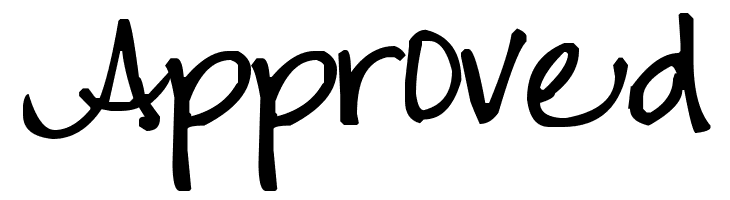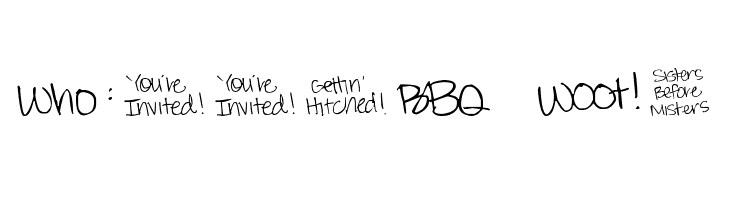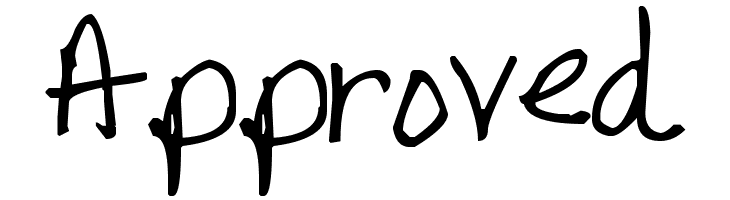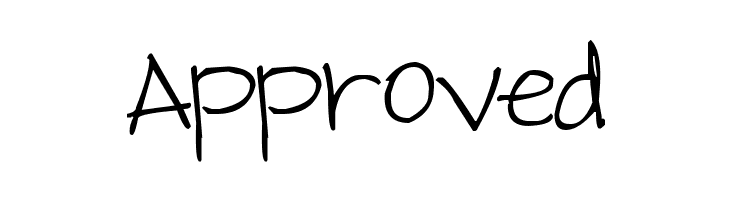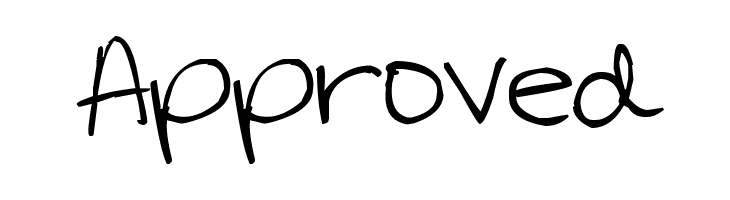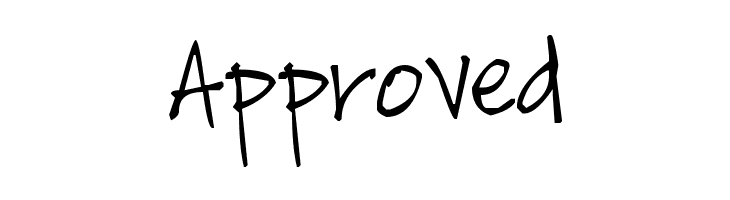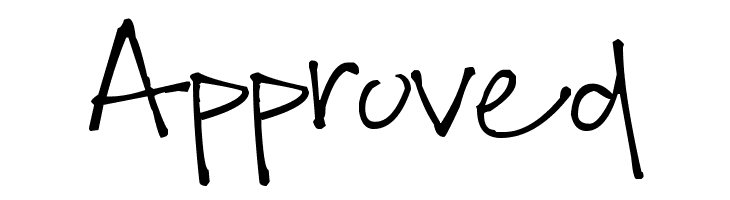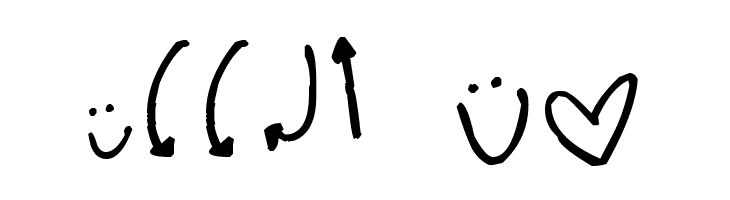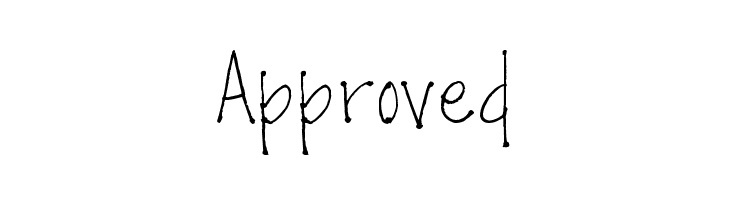
• Pea Shirley
A playful, casual handwritten font with fluid strokes and medium contrast.
• Pea Smashtastic
A playful and energetic handwritten font with a casual, informal style.
• Pea Smashtastic Doodles
A playful, handwritten font with whimsical doodles and a casual style.
• Pea Smashtastic Doodles Again
A playful handwritten font with a casual and friendly style.
• Pea Smashtastic in a Hurry
A lively, handwritten font with a playful and informal style.
• Pea Snow
A playful, informal handwritten font with a casual and friendly vibe.
• Pea So Lovely
A playful, handwritten font with a whimsical and personal touch.
• Pea Soniablu
A casual, handwritten font with fluid strokes and a personal touch.
• Pea Squeaker
A playful and energetic handwritten font with a casual, free-flowing style.
• Pea Stacy
A playful, handwritten font with whimsical flourishes and a personal touch.
• Pea Stacy Elizabeth
A playful, handwritten font with a casual and dynamic style.
• Pea Stacy Fancy
A playful, hand-drawn font with whimsical and artistic characteristics.
• Pea Stacy Tunibug
A playful, hand-drawn font with a whimsical and casual style.
• Pea Stacy's Doodle Script
A playful, whimsical cursive script with intricate swirls and loops.
• Pea Stacy's Doodles
A whimsical collection of hand-drawn doodles featuring flowers, paisleys, and other decorative elements.
• Pea Stacy's New Doodles
A playful and whimsical collection of hand-drawn doodles with varied themes.
• Pea Steele
A playful, casual handwritten font with irregular strokes and a lively feel.
• Pea Sugar Noodles
A playful, informal handwritten font with bold, irregular strokes.
• Pea Summer Funkyness
A playful, hand-drawn font with whimsical and decorative elements.
• Pea Summer Sweetness
A playful, handwritten font with a casual and whimsical style.
• Pea Tammi
A playful, handwritten font with irregular and organic strokes.